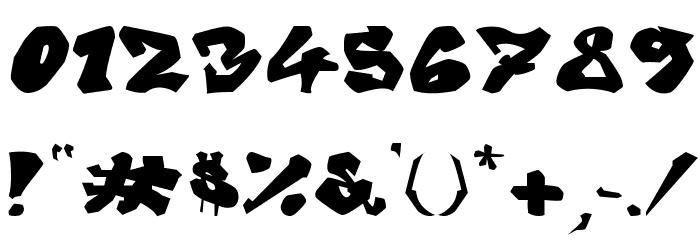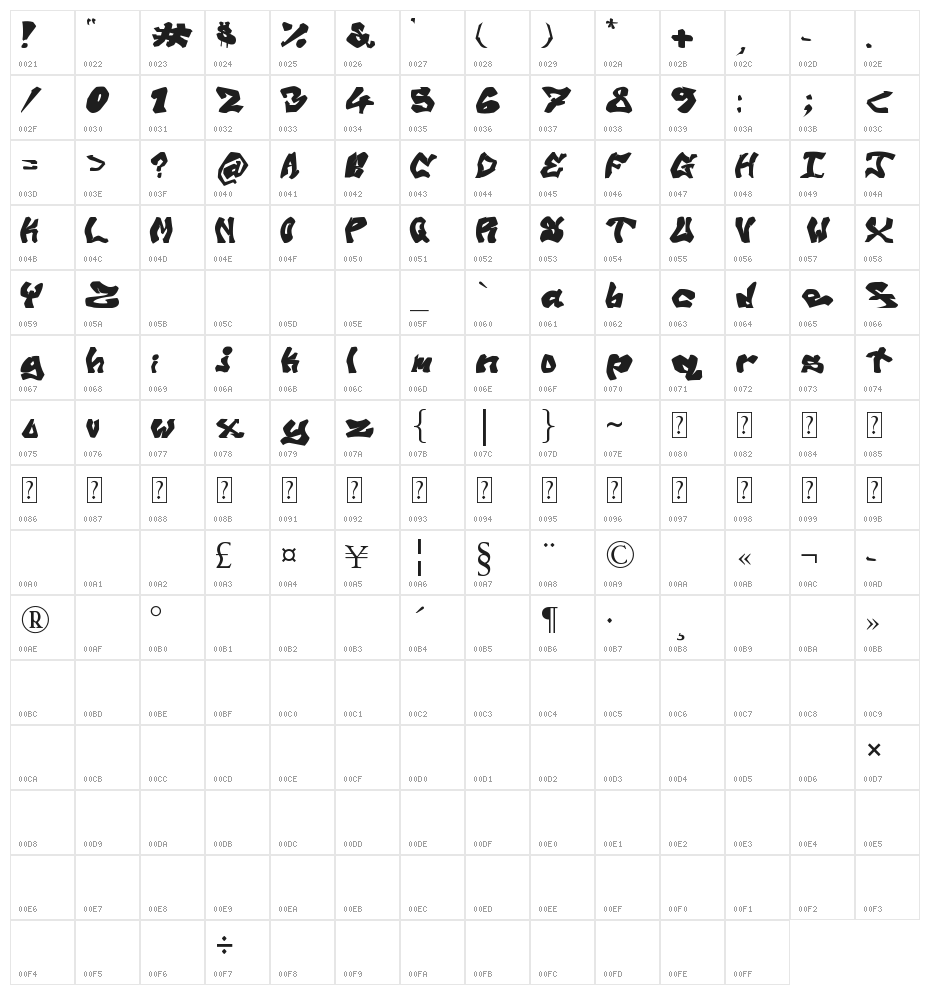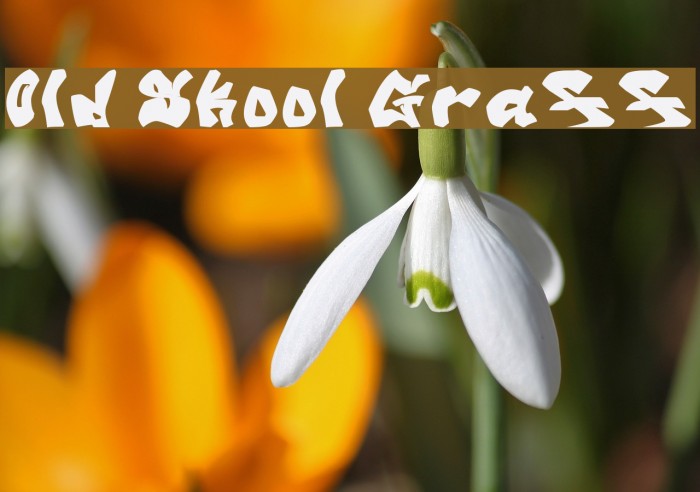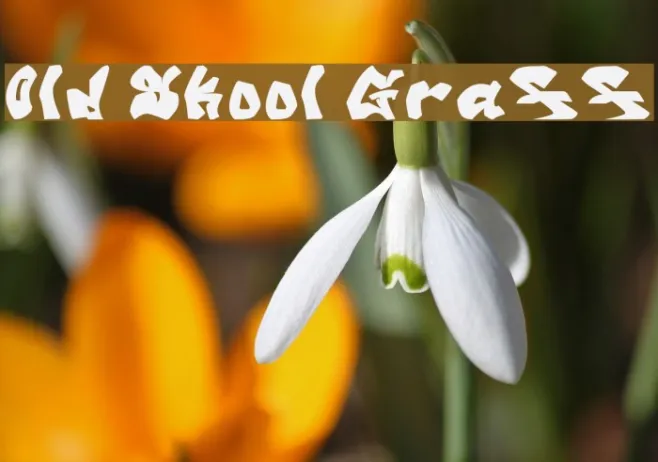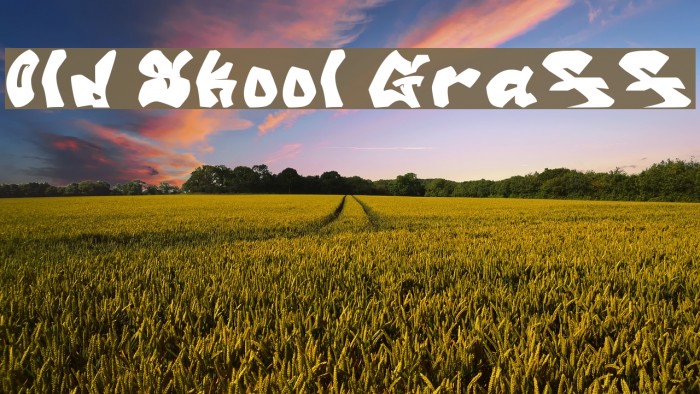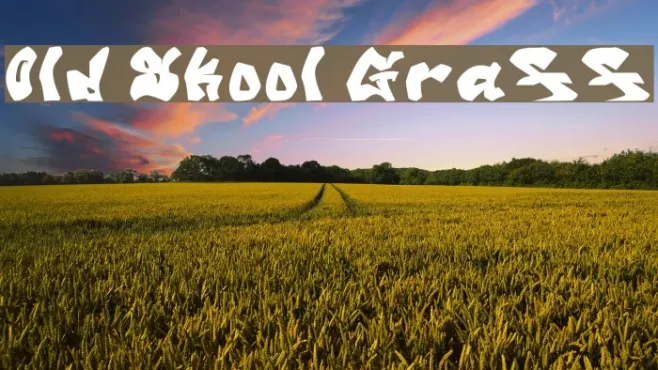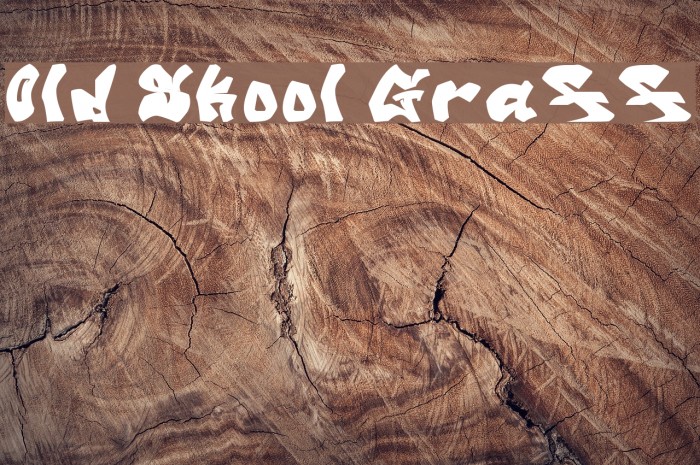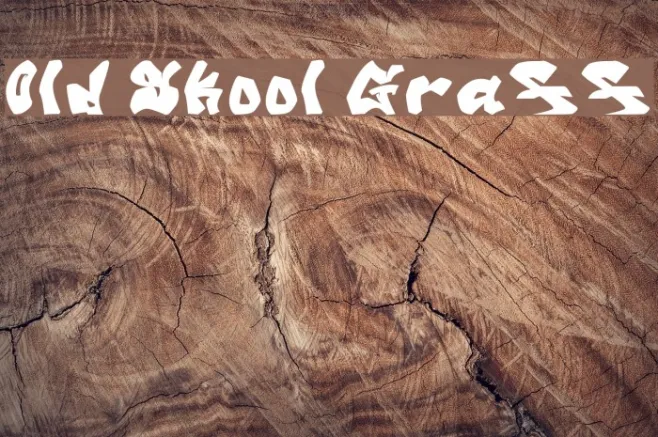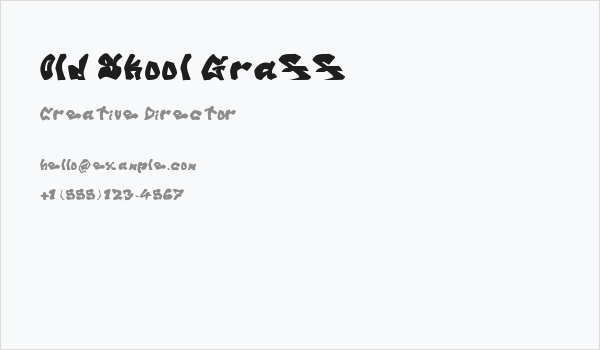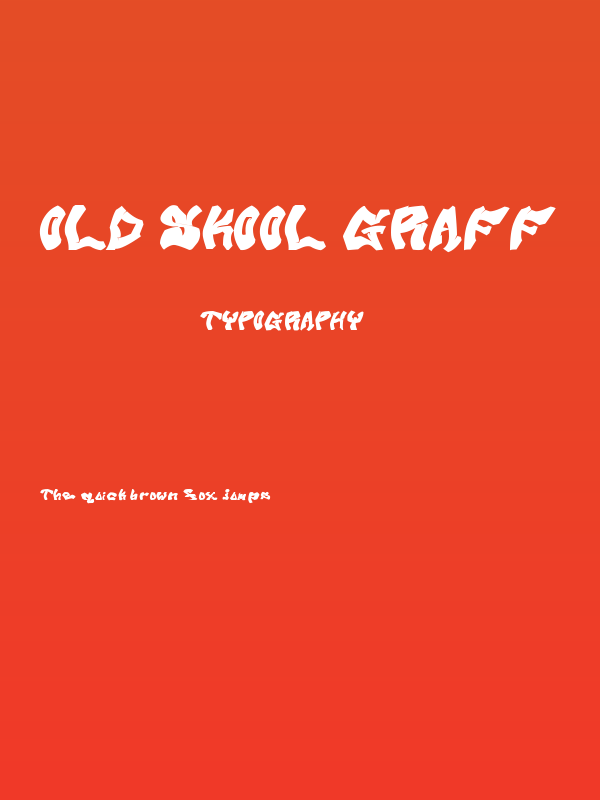
Old Skool Graff Font
Old Skool Graff Description
This font exudes a bold, rebellious energy reminiscent of street art and graffiti culture. Its characters are dynamic and angular, with sharp edges and a sense of movement that captures the essence of urban expression. The uppercase and lowercase letters maintain a consistent style, each letter appearing as if it were painted with a swift, confident stroke. Numbers and special characters follow the same aesthetic, adding to the font's cohesive look. This font is perfect for projects that require a touch of edginess and creativity, making it ideal for posters, album covers, and urban-themed designs.
| Overall Style | Urban, Edgy, Graffiti |
| Proposed Projects | Ideal for street art projects, urban-themed posters, album covers, and edgy branding. |